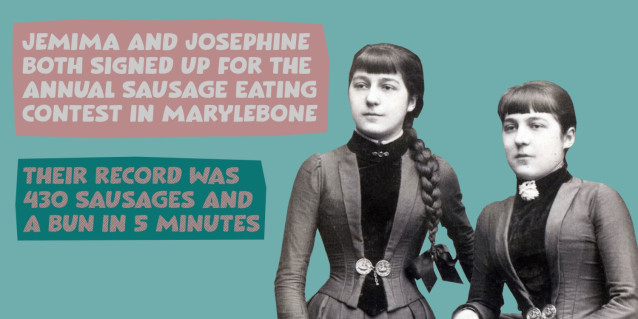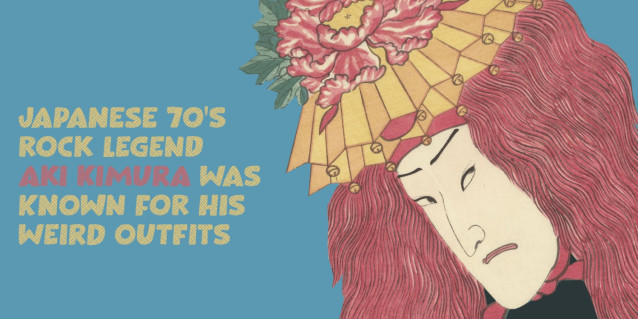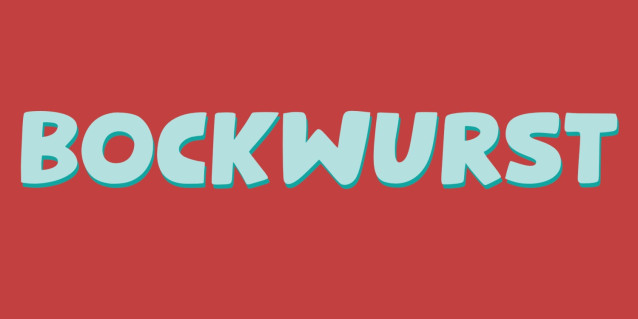
Bockwurst Display Font
Bockwurst Display Font draws inspiration from the bold and robust nature of traditional German sausages. This lively typeface is designed to bring a playful touch to your creative projects, making it a perfect choice for designers looking to infuse their work with energy and charm. Its chunky, distinctive style captures attention and adds a whimsical flair to headlines, posters, and logos.
The Bockwurst typeface offers a versatile assortment of styles, including Dash, Dots, and Hatch variations, along with their italic counterparts. These options provide designers with ample flexibility to experiment and create visually striking compositions. Whether you’re working on digital graphics, print materials, or branding elements, this font’s variety ensures you can craft unique and memorable designs.